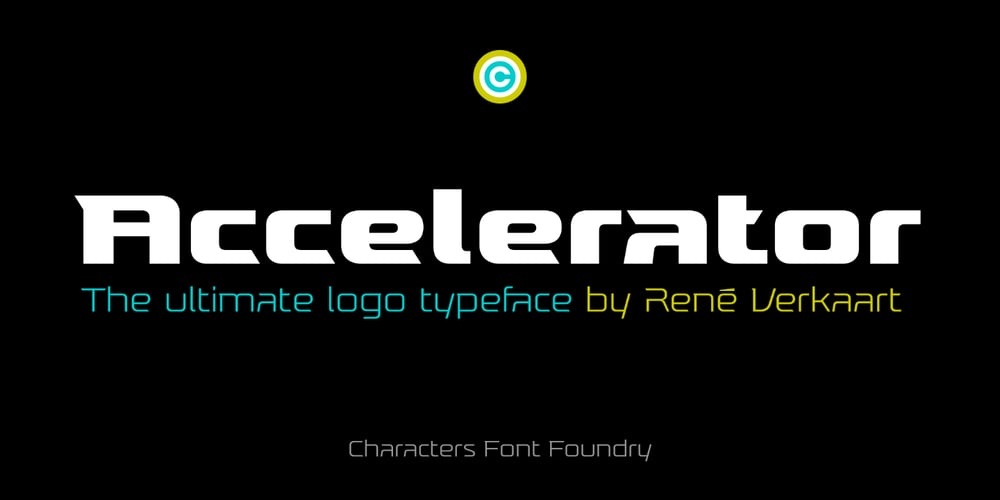
Accelerator
Accelerator font
Accelerator Font Family was designed by René Verkaart and published by Characters Font Foundry. Accelerator contains 9 styles and family package options. FONT UPDATE → CFF Accelerator Roman is the ultimate logo typeface. It’s an efficient font family, consisting of 8 fonts with 4 weights and 2 widths. The masculine wide shoulders and sharp diagonal serifs are instantly recognizable and leave a lasting impression. CFF Accelerator is a space-age font made for heavy lifting. The original Accelerator Italic font was designed in 2005, making it our very first commercial font. It was created as an all-caps typeface. Now, the new Accelerator Roman font family has lowercases, an extended glyph set, a gazillion discretional ligatures, and loads of OpenType features.CFF Accelerator is currently our all-time bestseller!